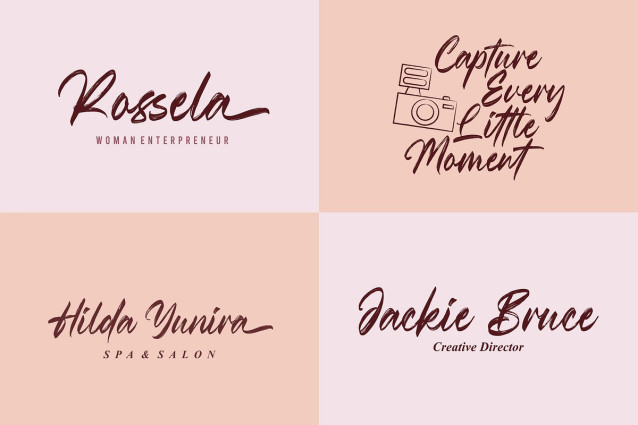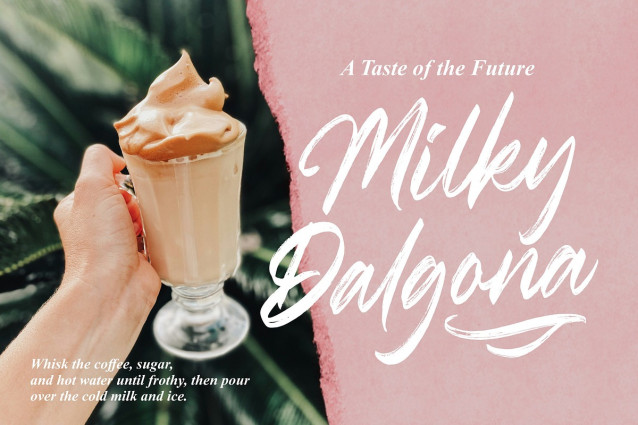
Migrand Brush Font
Migrand Brush Font a Handwritten script font that blends the elegance of natural handwriting with the raw energy of textured brush strokes. Perfectly imperfect, Migrand carries a dynamic, organic feel that adds personality and movement to your designs.
With its flowing curves and authentic brush texture, Migrand is ideal for branding, posters, packaging, wedding invitations, social media graphics, and more. Every stroke is designed to give your work a handcrafted, artistic vibe—effortlessly stylish and uniquely bold.